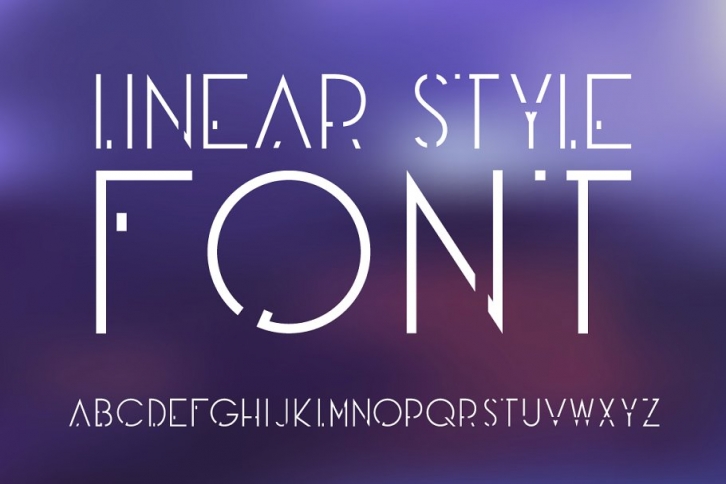
Futuristic OTF . Uppercase only! is a gorgeous font that was realeased on October 14, 2019. The font can be used in many style contexts and design environments. Perfect for invitations, magazines, websites, logos, and more! It was designed by Fractal fonts and the file size is 14.36 MB. Thanks for checking out this font!